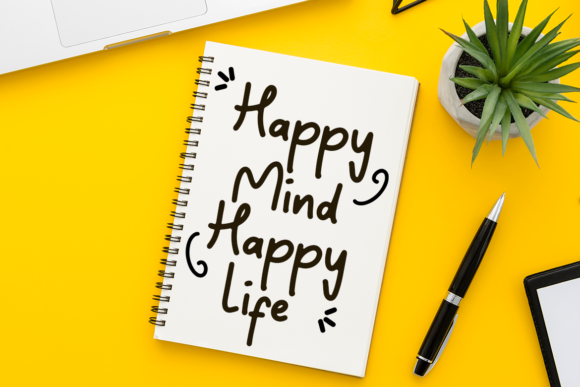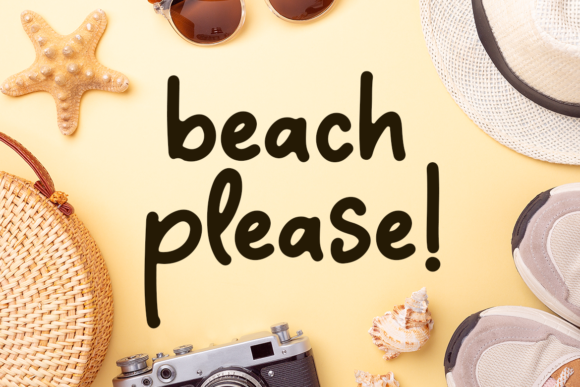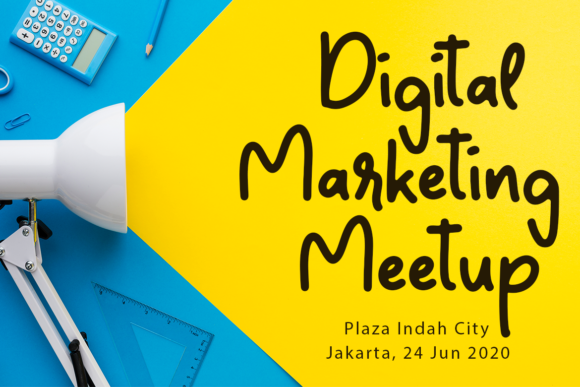
Introduction to Be Smile Font
Be Smile is a bold display font, carefully handcrafted to become a true favorite.
Its casual charm makes it appear wonderfully down-to-earth, readable and, ultimately, incredibly versatile Be Smile will look outstanding in any context, whether it’s being used on busy backgrounds or as a standalone headline.